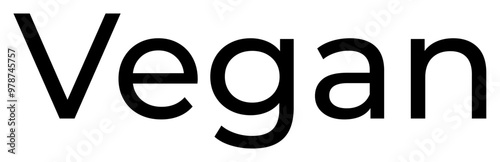
Black text stating Vegan on a plain white background in bold, sans-serif font. Ideal for promoting veganism, plant-based diets, animal rights, eco-friendly living, and healthy eating.